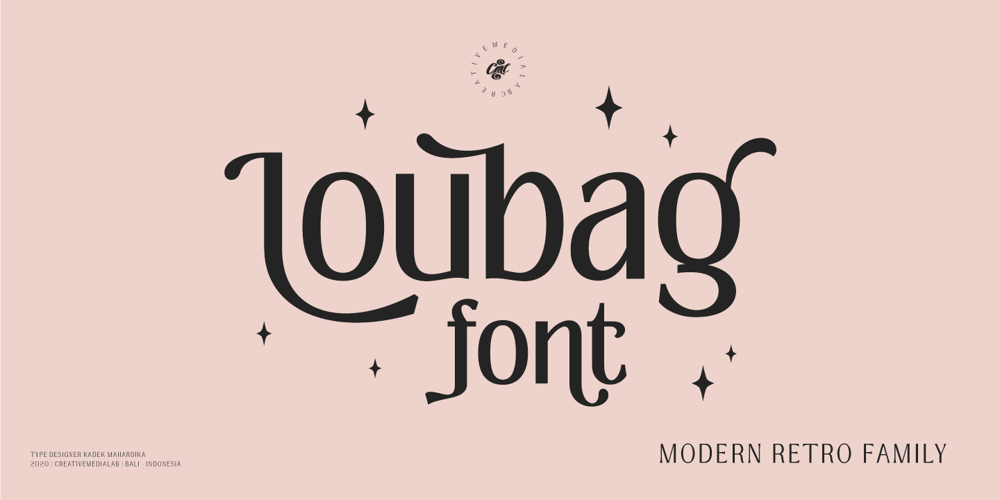
Loubag Font Family was designed by Kadek Mahardika and published by Creativemedialab. Loubag contains 10 styles and family package options. Loubag is a combination of modern sans serif and serif with a retro touch which makes Loubag unique.This family has 9 weights from thin to black, also includes a Variable style as well as multilingual support, numbers, and currency symbols.This versatile font is suitable for use in many design forms, for example magazines, postcards, logos, DIY Projects, invitation card, quotes, vintage look design, old classic ,60s, 70s, 80s era, wedding projects and much more. We recommend using Adobe Illustrator or Photoshop.how to access alternate? Adobe Photoshop go to Window – glyphs Adobe Illustrator go to Type – glyphs